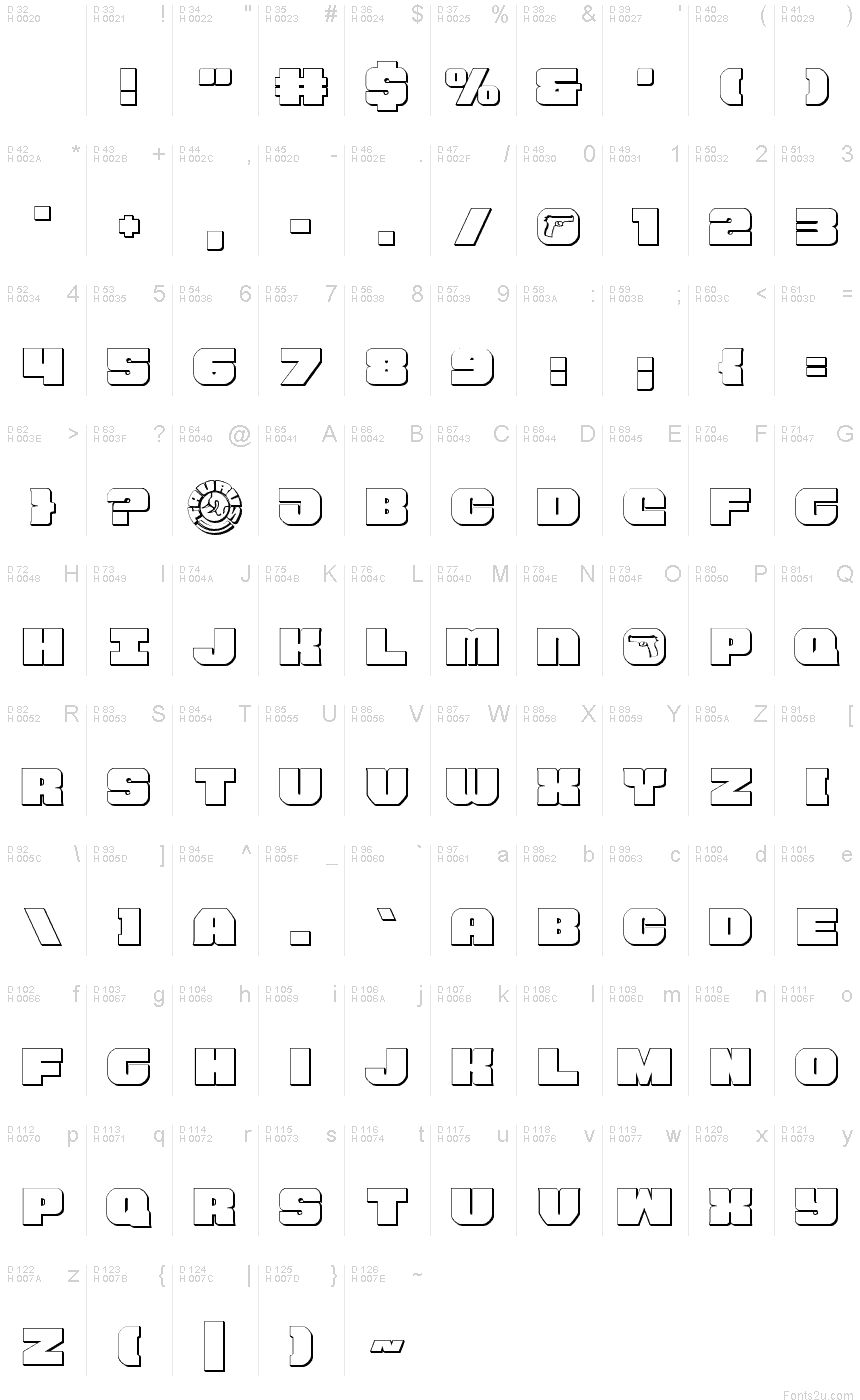
Tauro 3D by Iconian Fonts is a free outlined 3D display font with broad, tightly packed capitals and an imposing arcade-title silhouette drawn at a wide, muscular scale. Deep inset contours, clipped interior cuts, and small notches interrupt the rounded outer shapes, giving the letters a machined, molded appearance rather than a simple hollow outline.
It can turn lettering into a substantial emblem for game covers, sports merchandise, or action-film graphics, with the recessed lines suggesting carved panels on a solid surface. For automotive branding and event posters, it can become the lettering inside a badge-like product identity.